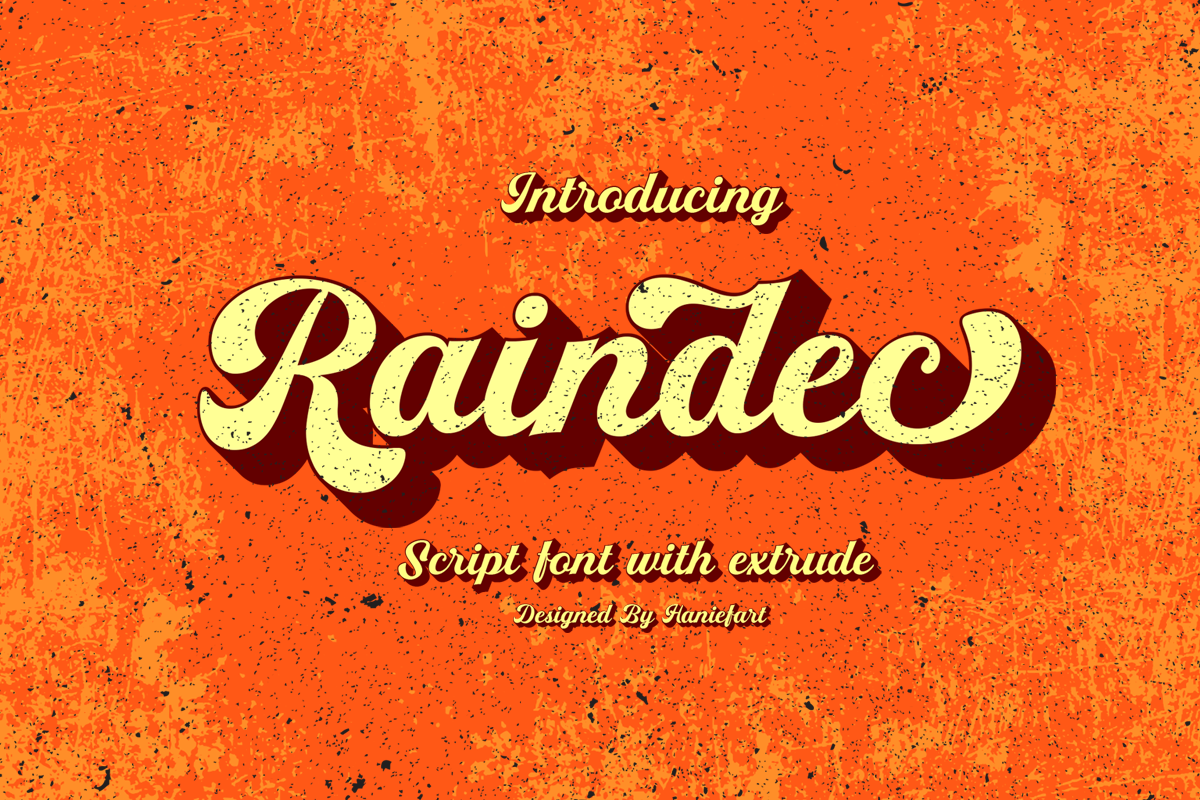
Raindec - Script Font With Extrude
Raindec is a handcrafted script typeface, a font inspired by sign paintings, branding, t-shirts, flyers, and more, with a variety of interesting characters. You can make Raindec feel personalized for your client’s projects. Raindec script fonts can be used for magazines, clothing designs, logos, titles, flyers, and more.